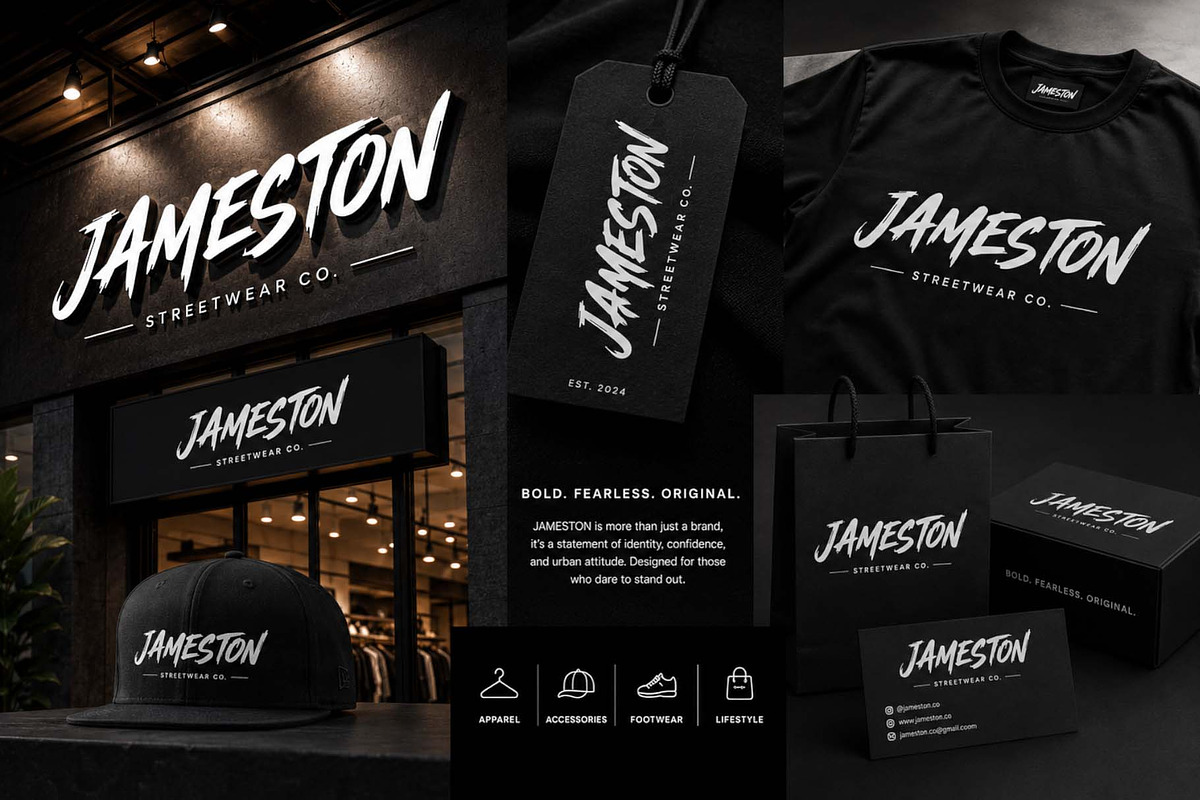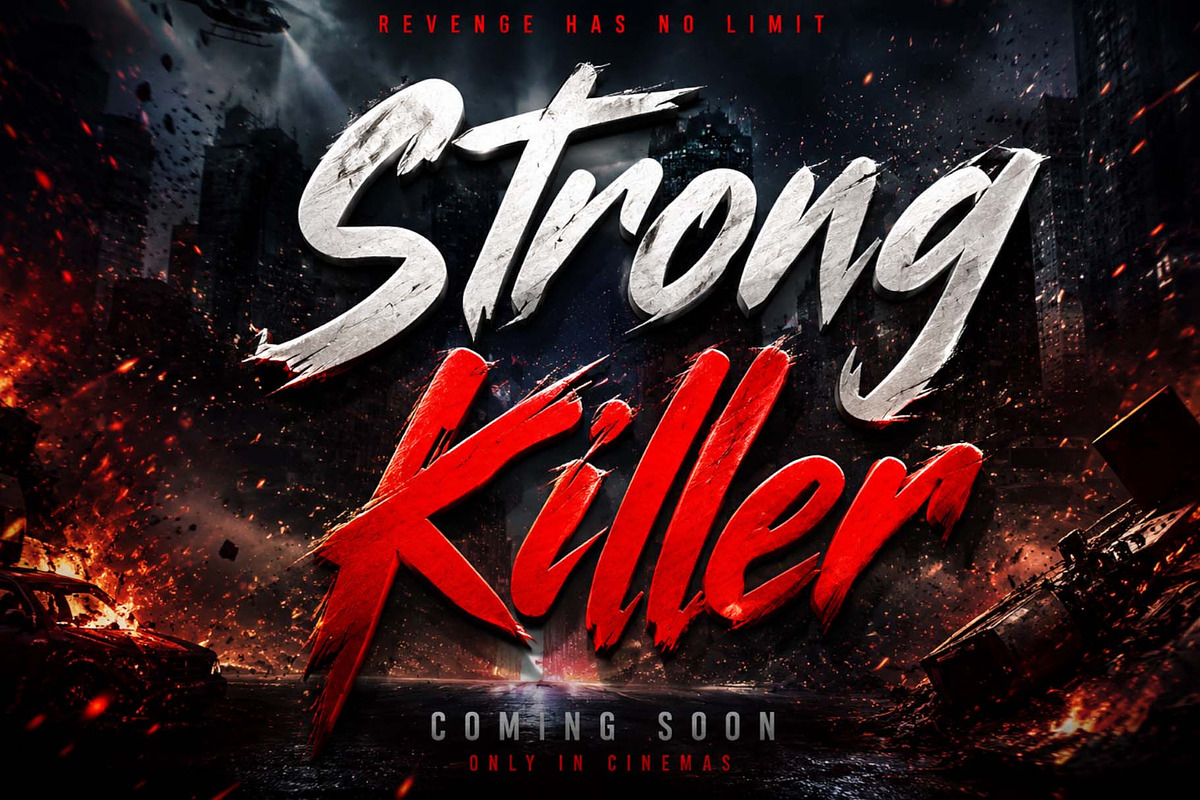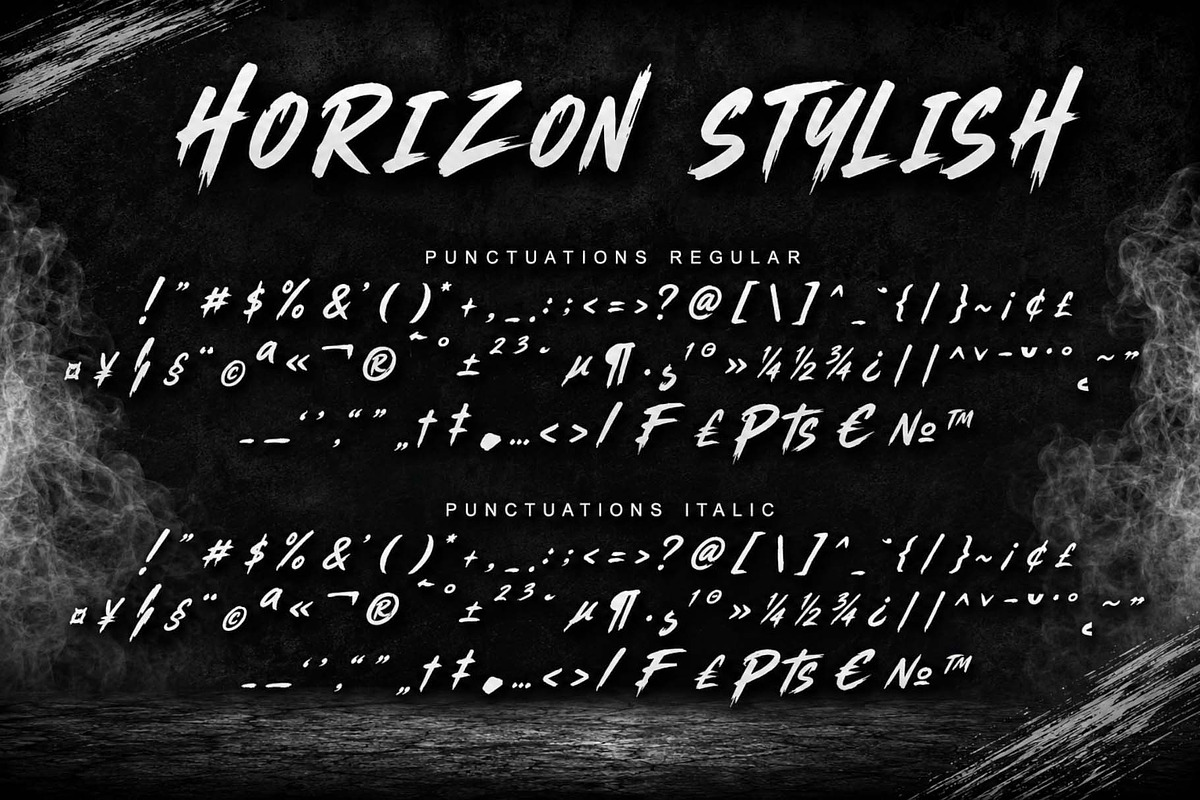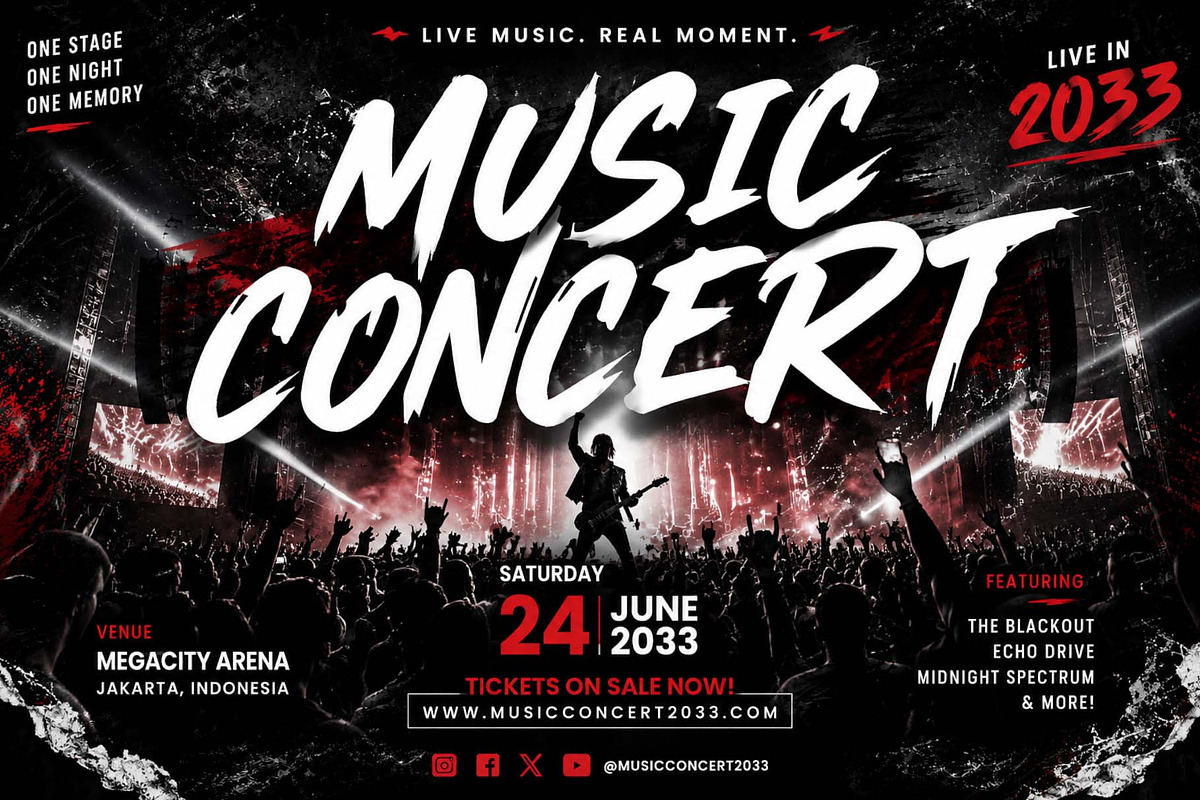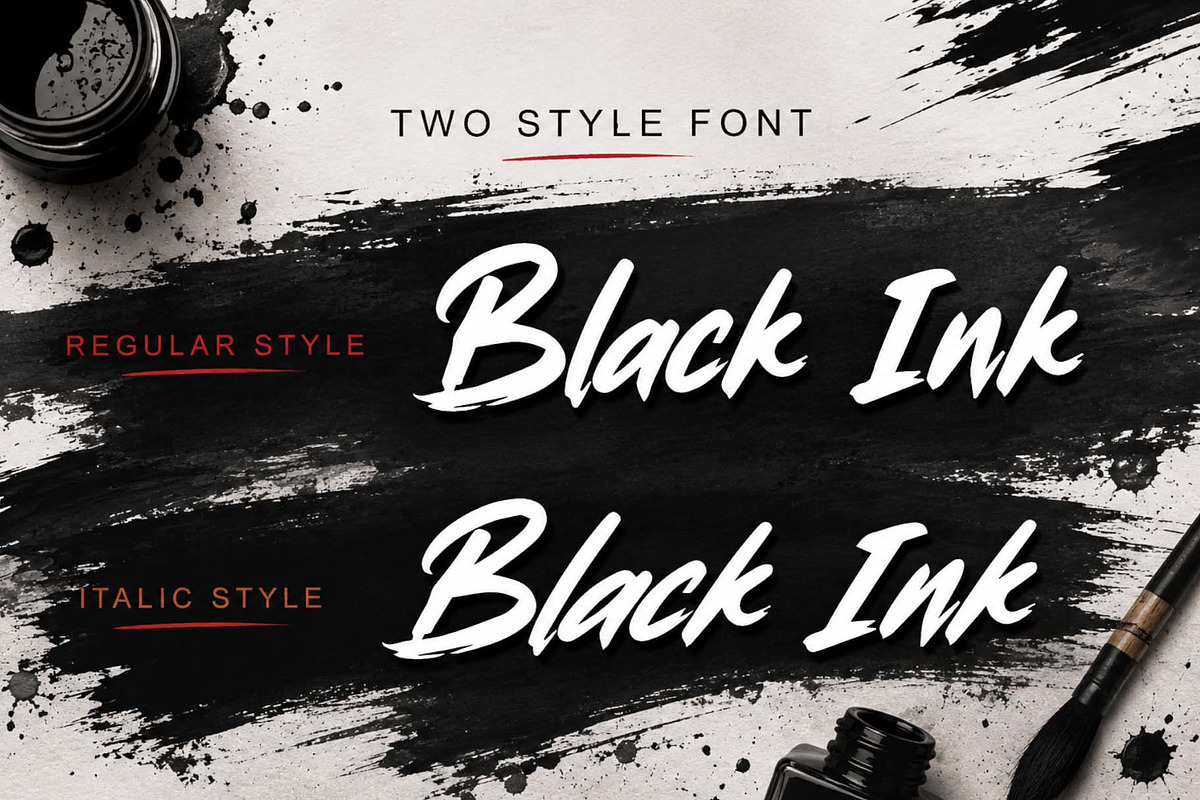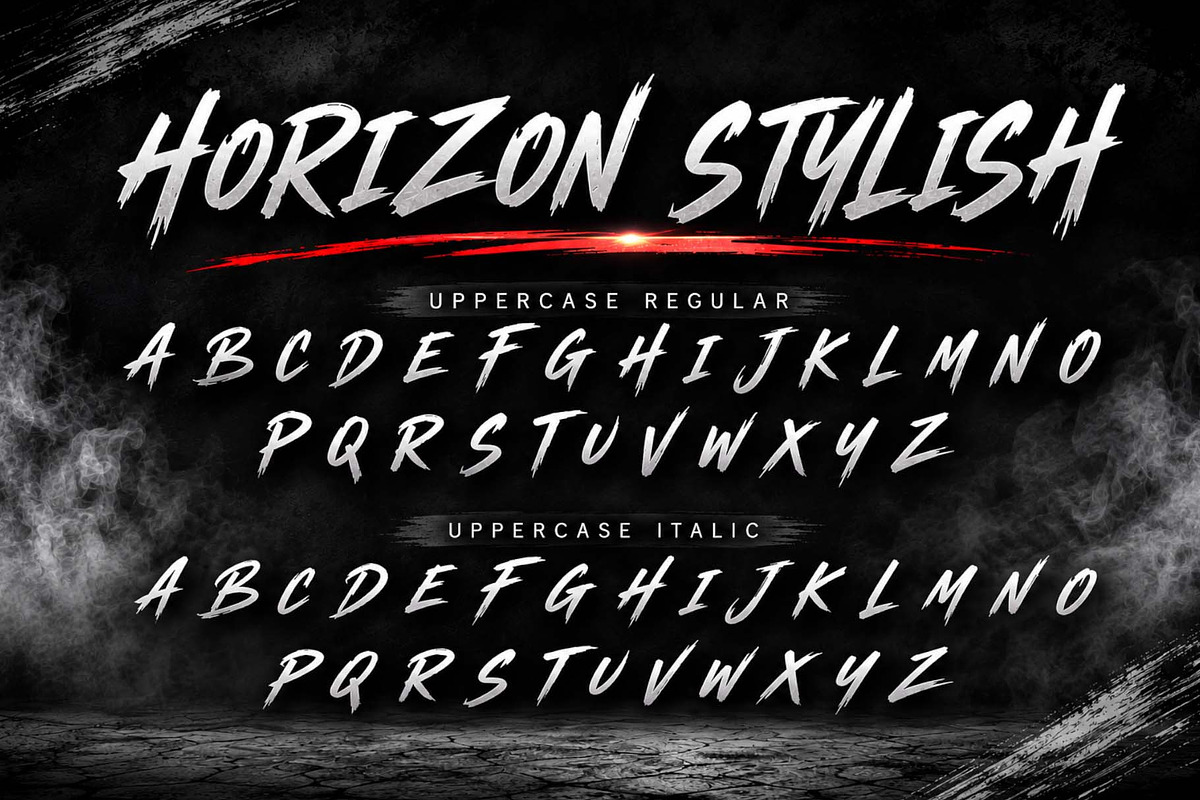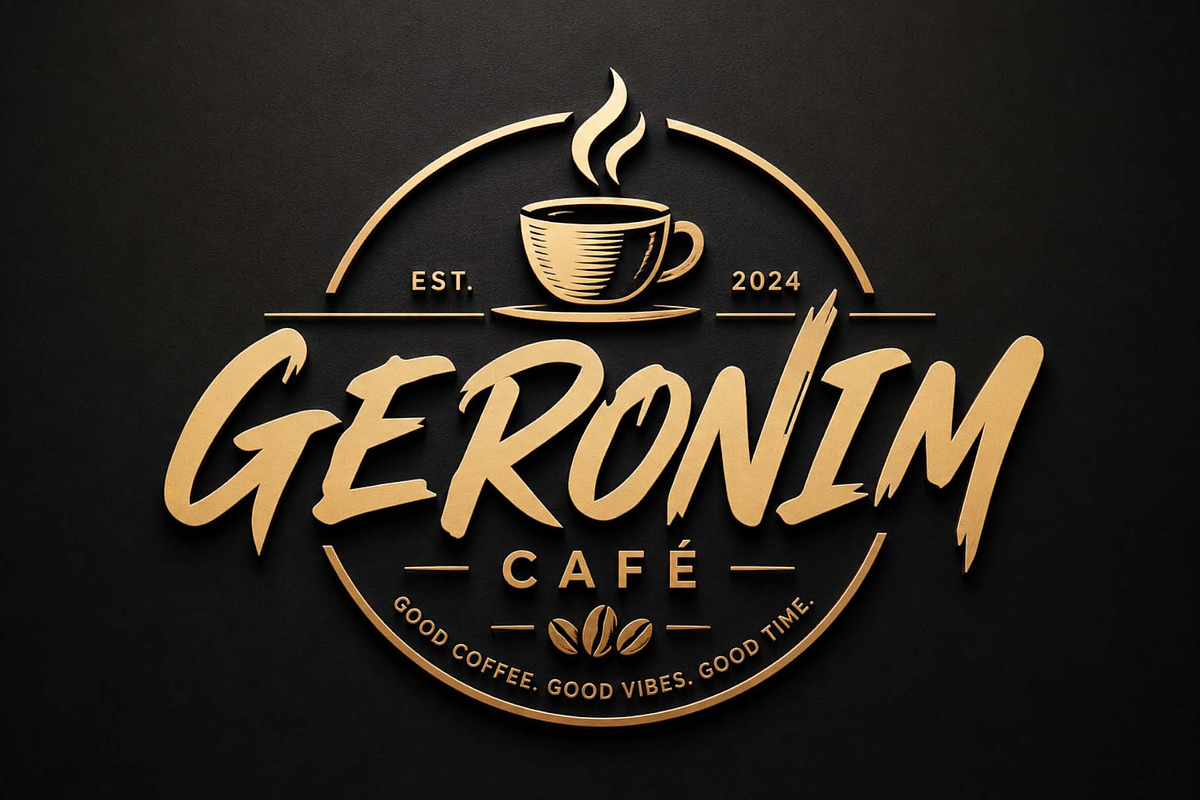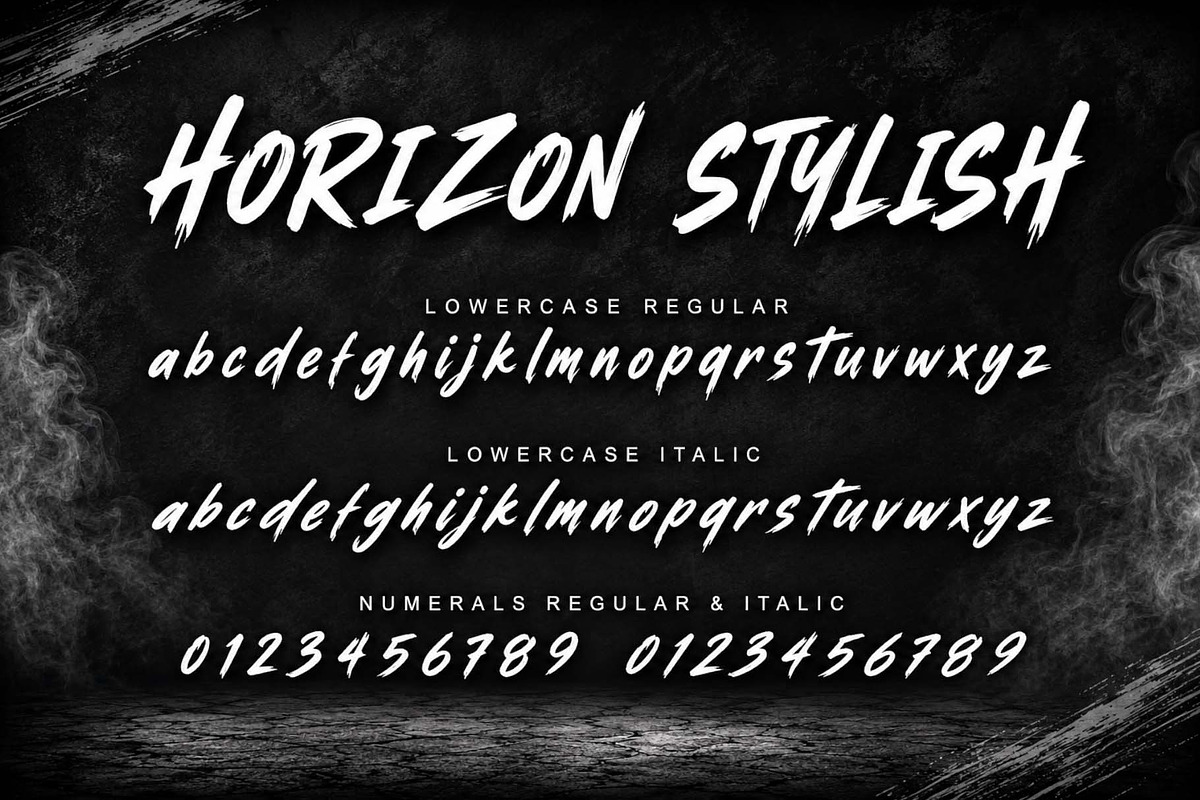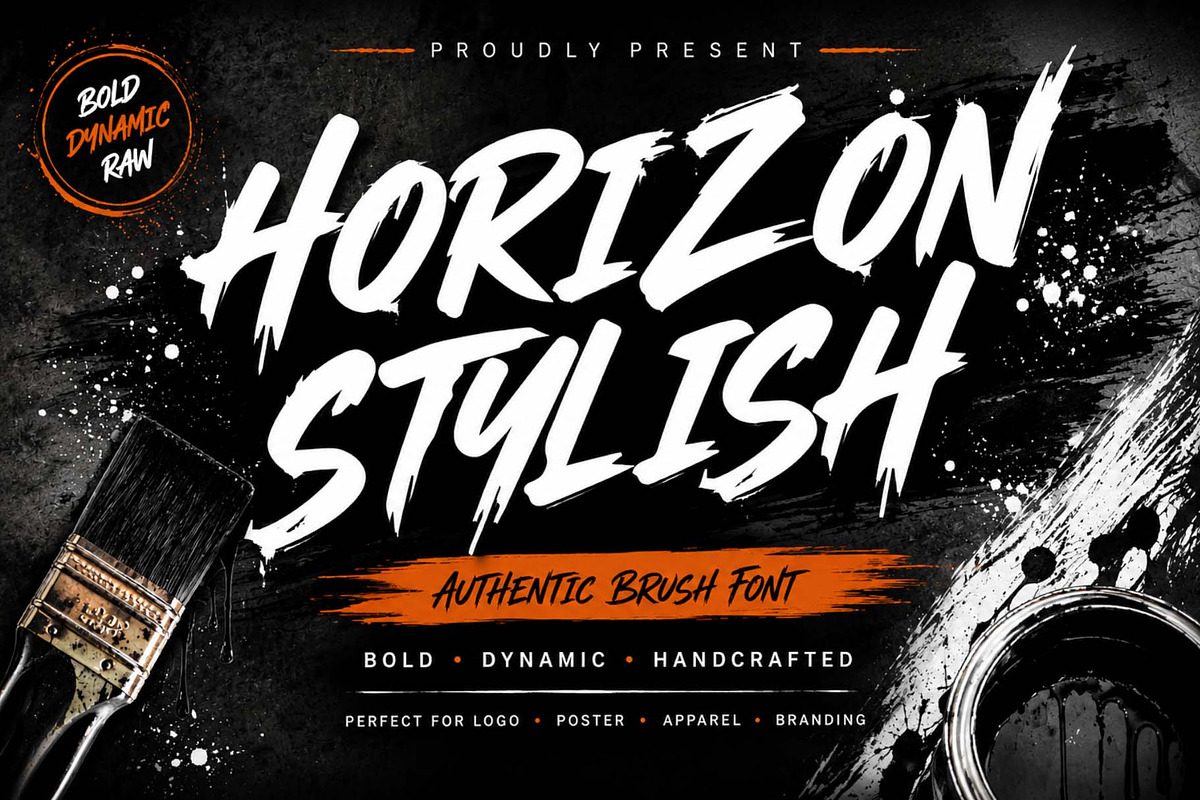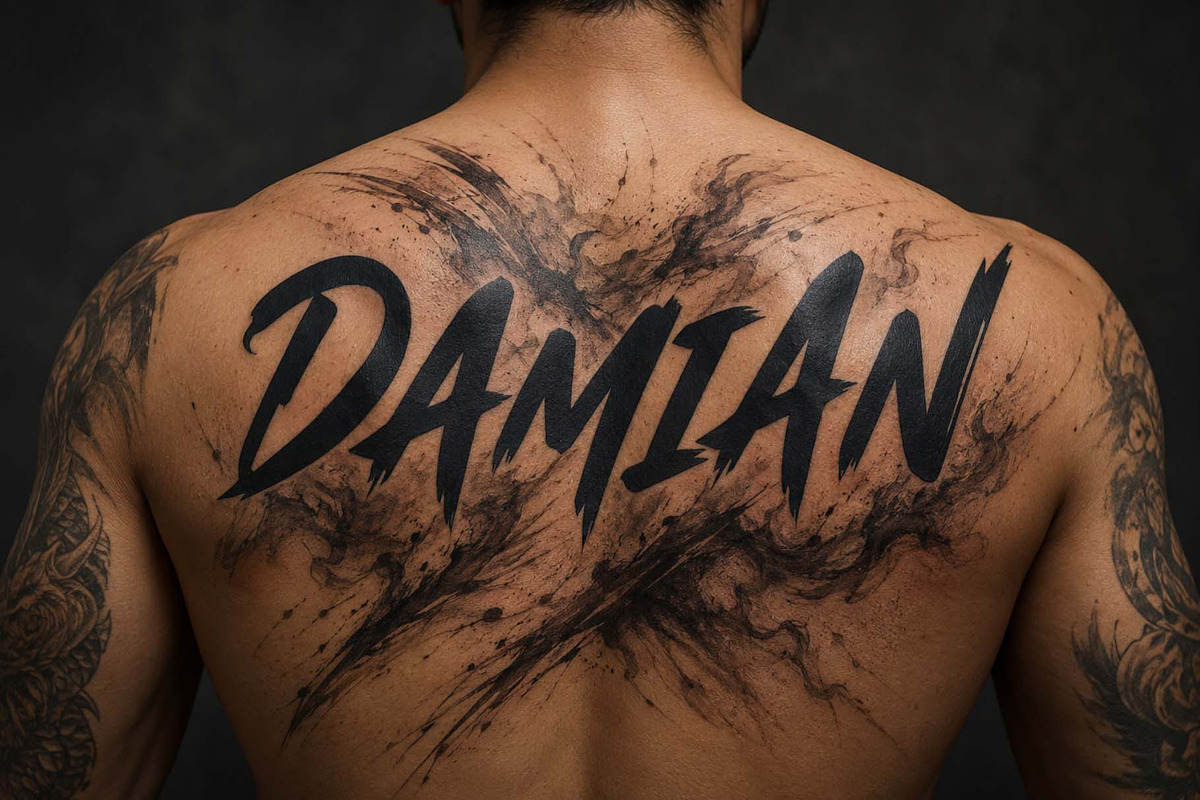
Horizon Stylish
Horizon Stylish is a bold and energetic brush font, crafted with authentic hand-painted strokes for a strong visual impact. Its rough edges and dynamic style make it perfect for logos, posters, apparel, branding, and attention-grabbing titles. Designed for a handcrafted feel, this font adds confidence, creativity, and a modern, street-inspired character to any project. For both print and digital design, Horizon Stylish helps your work stand out with a strong, expressive, and professional look.